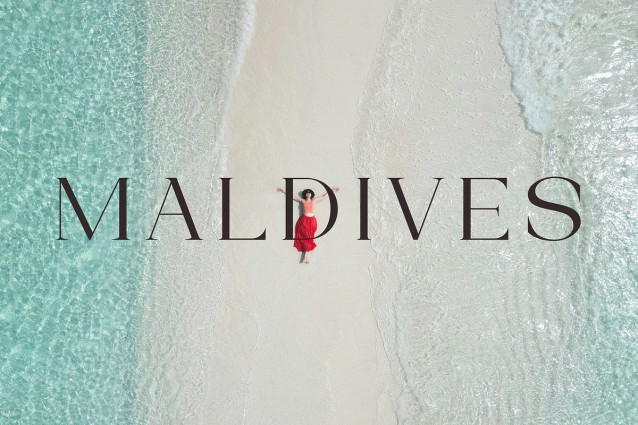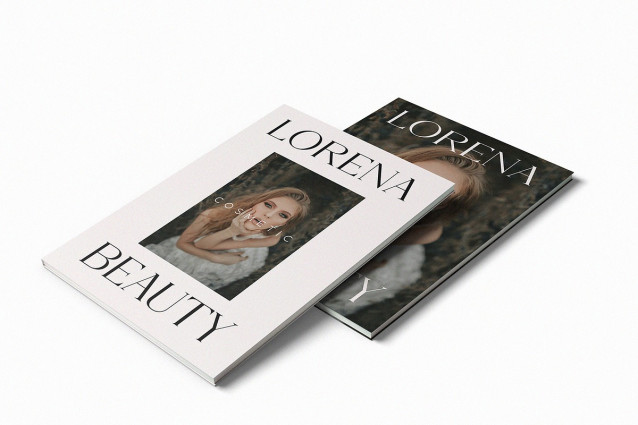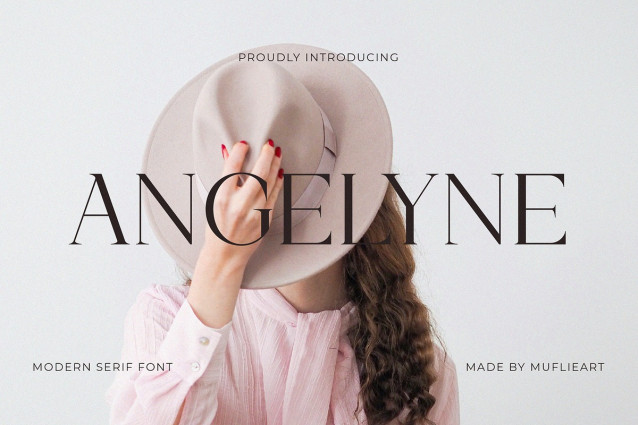
Angelyne Font
Angelyne Font, a modern, sleek and simple Serif typeface. With a modern and minimalist look, Angelyne brings a classy, ​​classy and clean look to your projects such as websites, modern logos, brand identities, social media quotes, wedding stationery, magazines and more!
Angelyne uses unique and classy uppercase letters from A to Z, making Maqena a beautiful, customizable font for many different projects and jobs you want.
Maqena is perfect for: logos, branding, wedding invitations, business cards, greeting cards, posters, magazines, social media, calendar prints and websites.